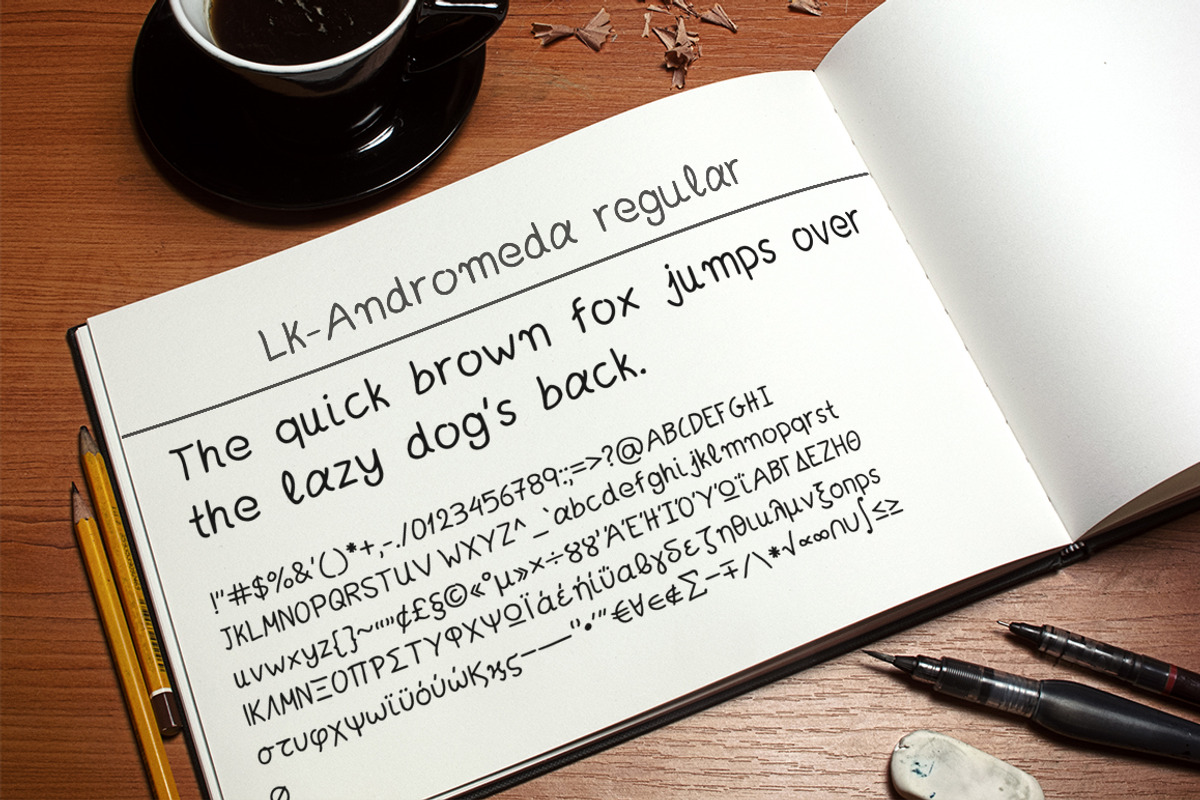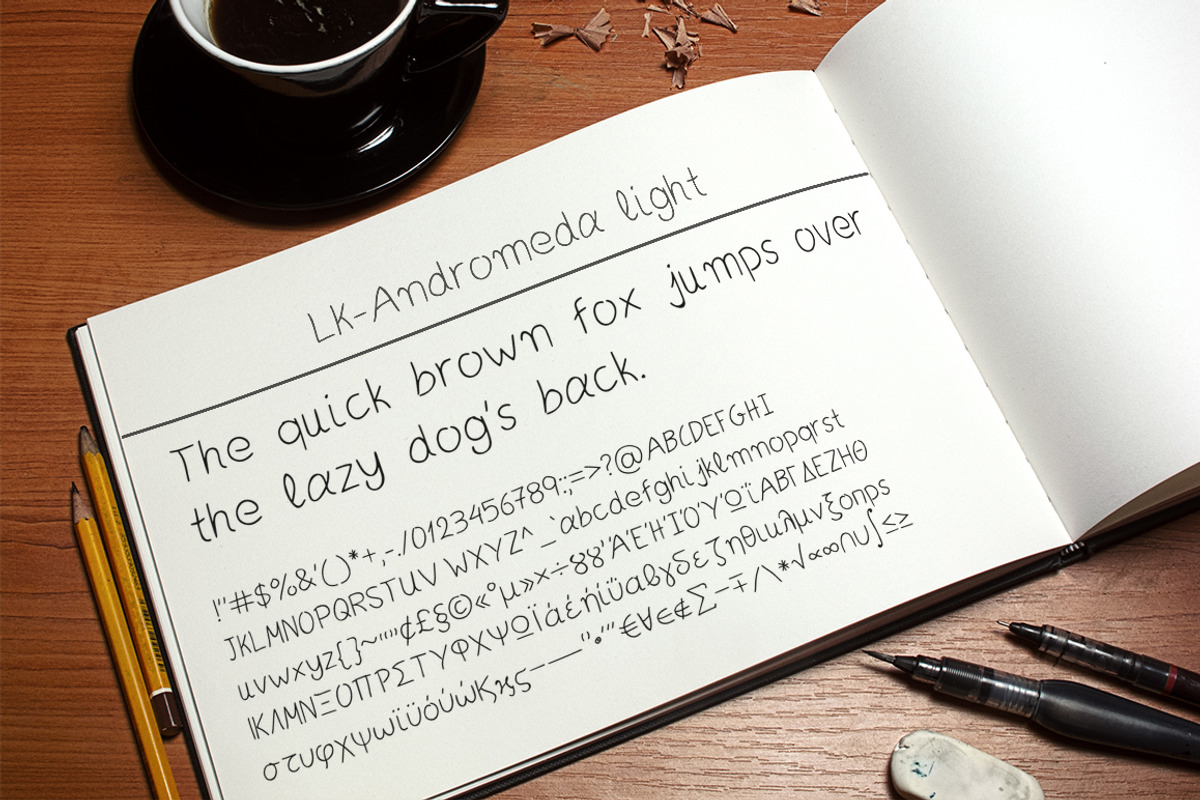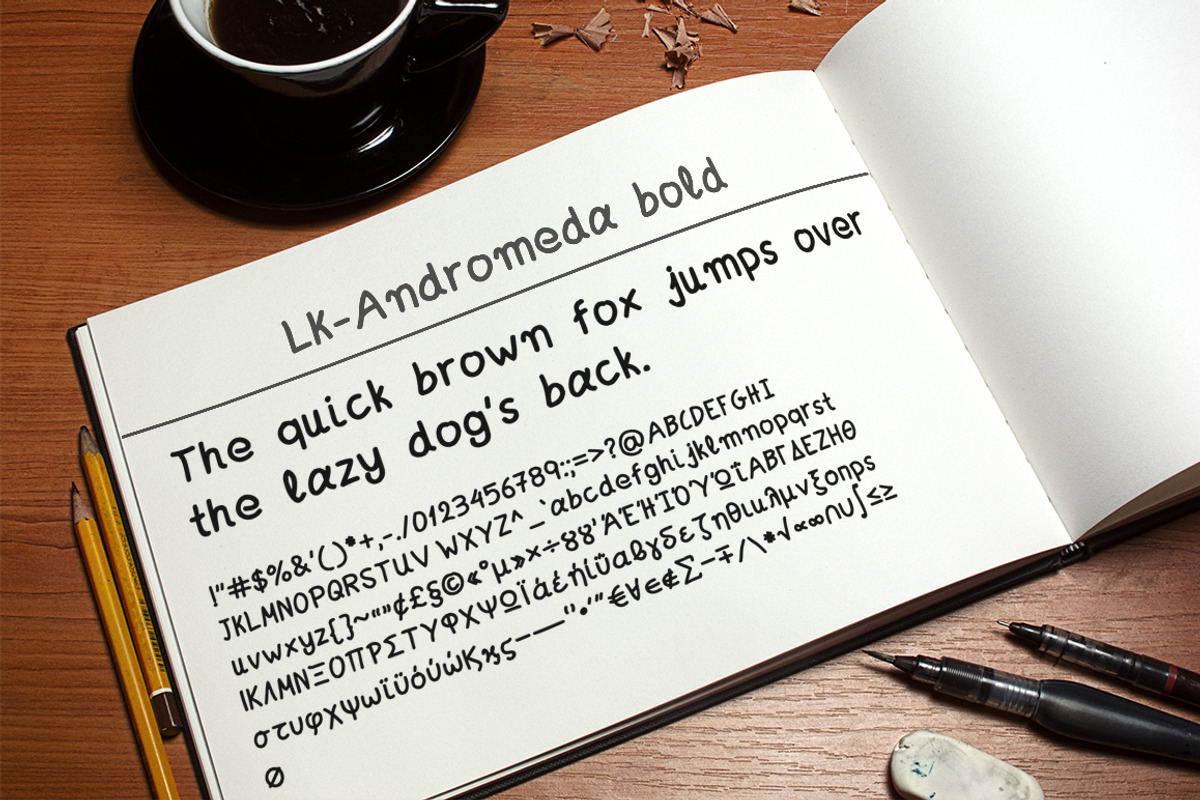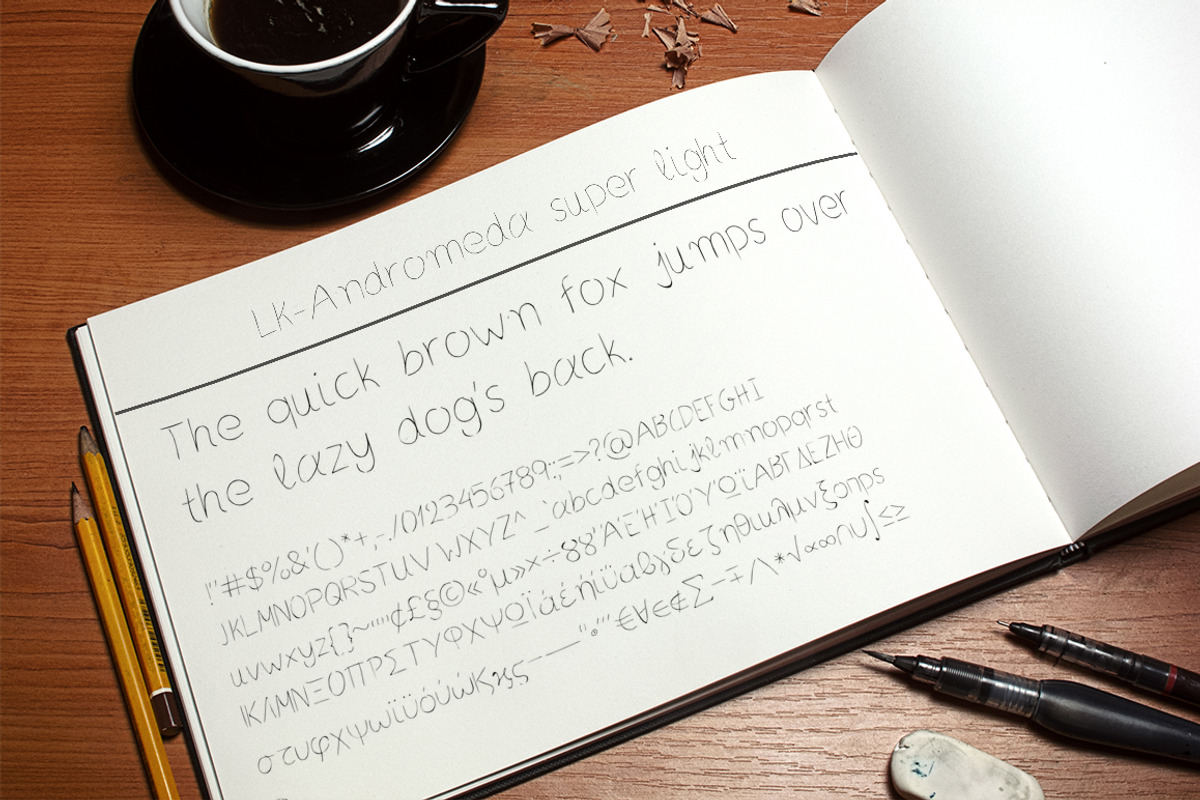
Andromeda Hand Drawn Font
Andromeda Hand Drawn Font by Elegrad Design Agency is a font selected for branding, posters, packaging, typography.
- Included are Andromeda Super Light Andromeda Regular Andromeda Bold SUPPORT FOR GREEK CHARACTERS (see preview images) The pa
Why Andromeda Hand Drawn Font is worth a look
Andromeda Hand Drawn Font by Elegrad Design Agency fits naturally into Branding, posters, packaging, typography.